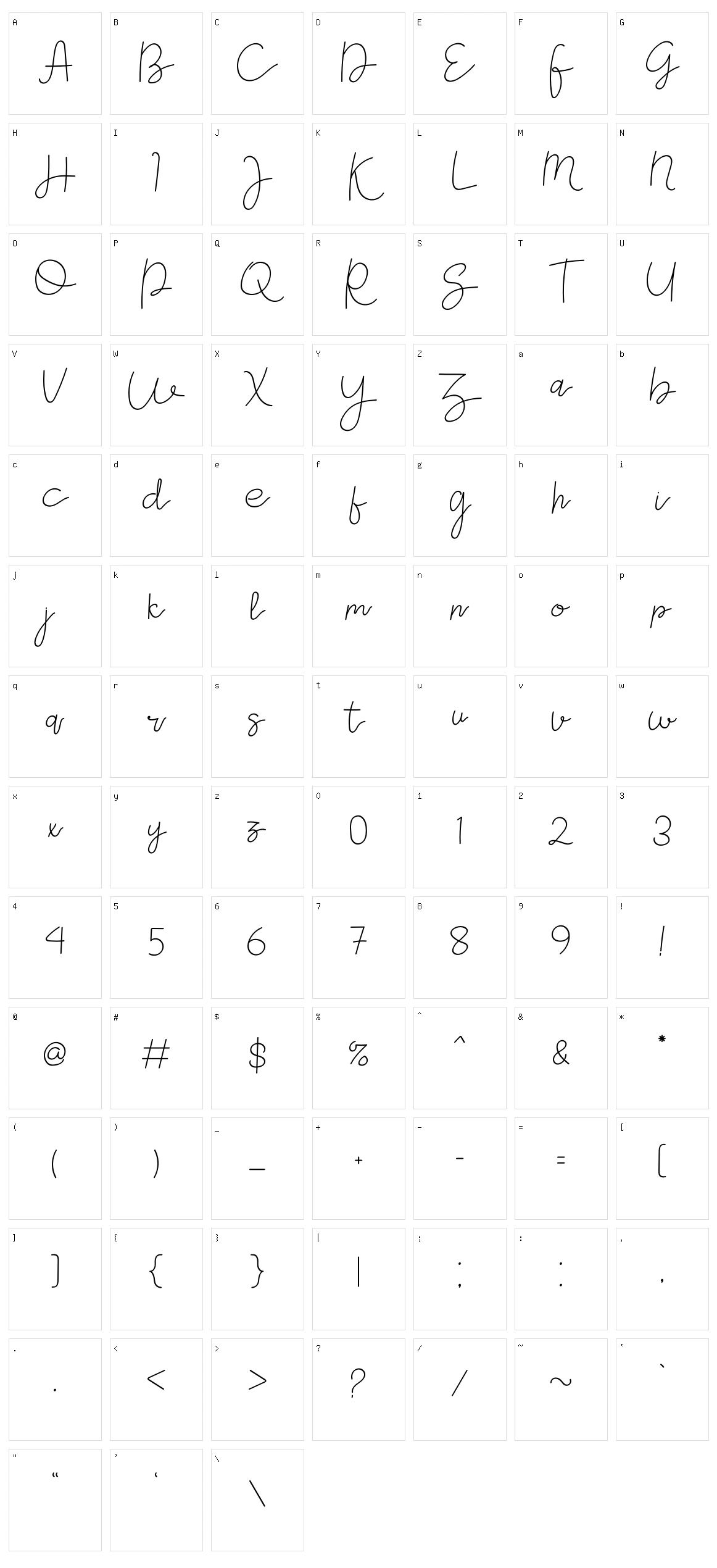
The free font Gevano is carefully designed by Attype Studio, showcasing a thoughtful balance of creativity and usability and falls under the Script font style. When you download the ZIP file, it contains only 50.81 KB of font files, making it lightweight and quick to download. Please review the license details below to understand permitted usage and distribution rights. If license information is not available, we recommend using this font for personal projects only or contacting the author directly for commercial usage permissions.